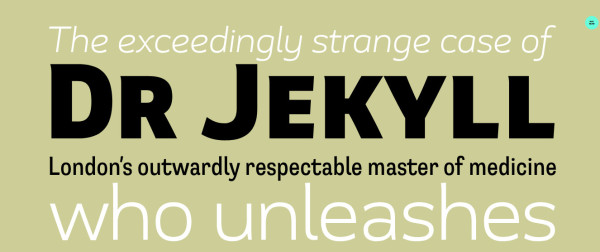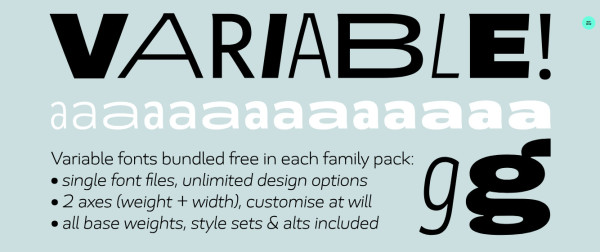
Jekyll And Hyde Font is a crafty new sans serif, given the J&H moniker because it’s two typefaces in one; the default (Jekyll) appearance can be altered significantly by swapping to the font’s Style Set 1 (Hyde) which is more ‘Grotesque’ in nature! G-Type founder Nick Cooke was also born in Hyde, near Manchester, so the name is quite apt!
Jekyll And Hyde Font, Three widths and multiple weights increase the versatility of this typeface which also comes in Variable format bundled free when purchasing the family volume.